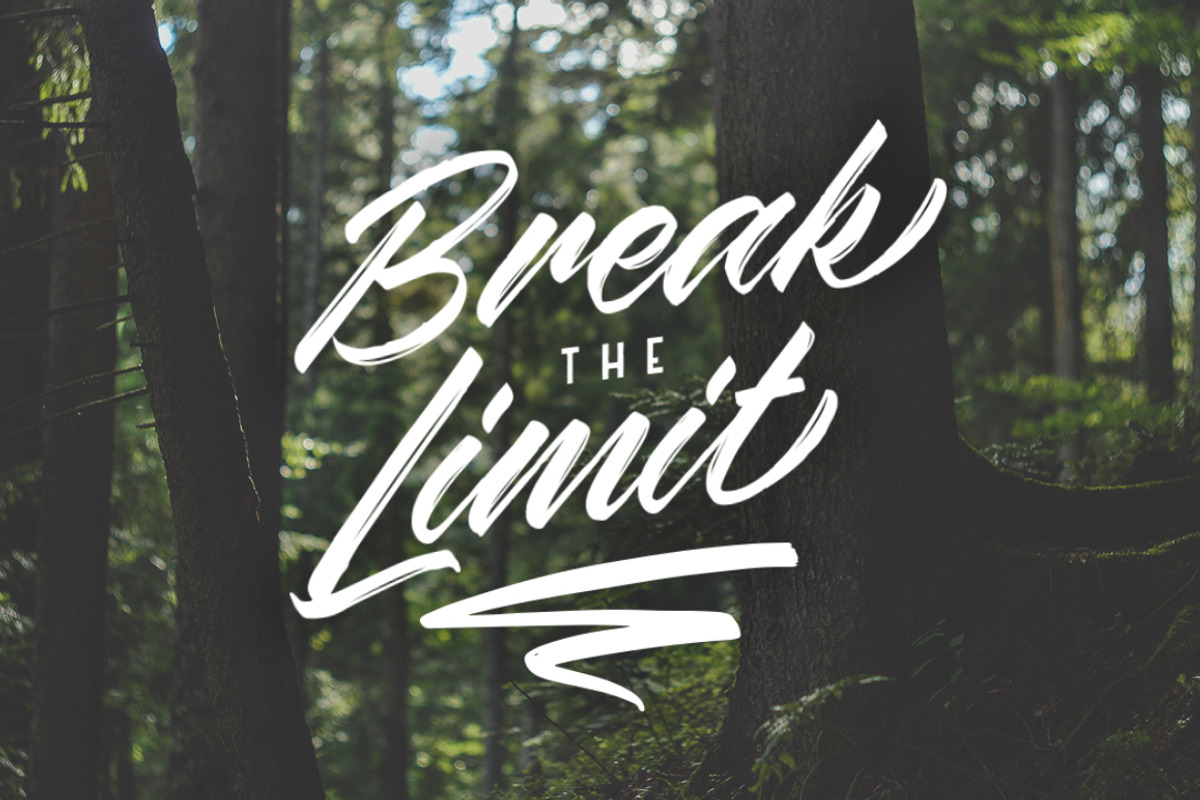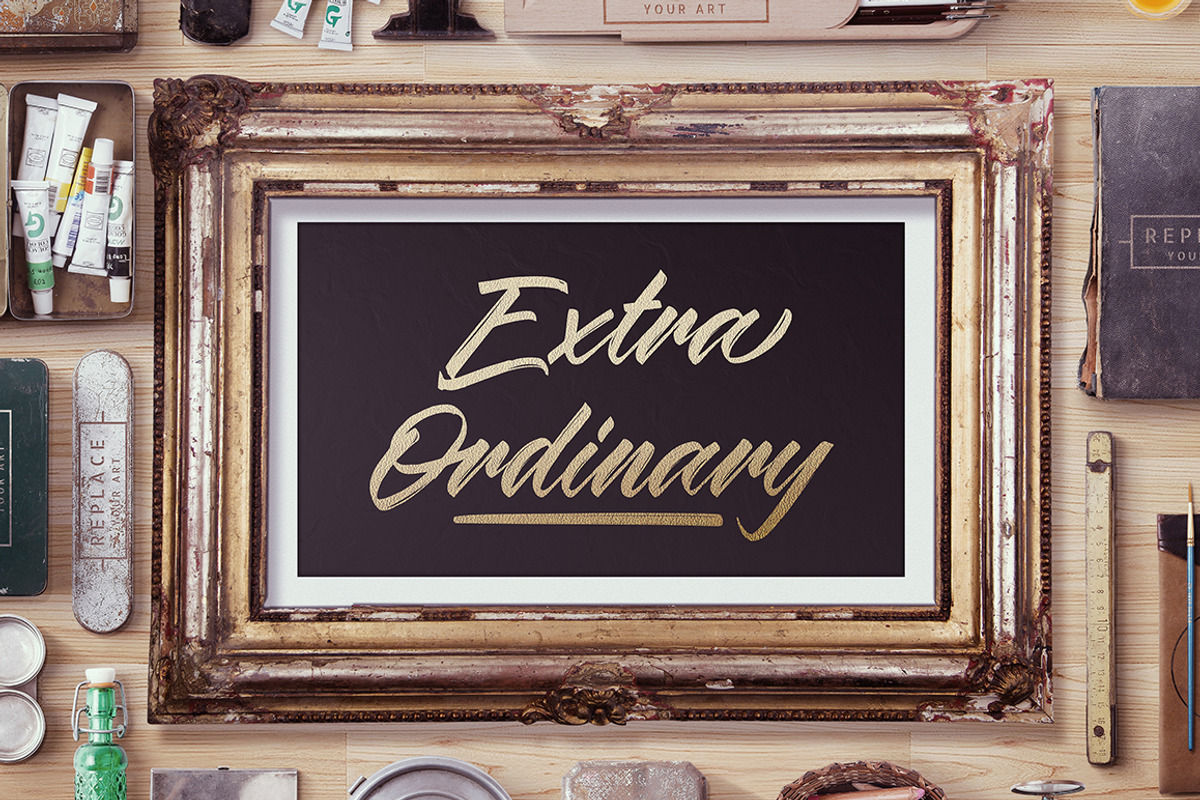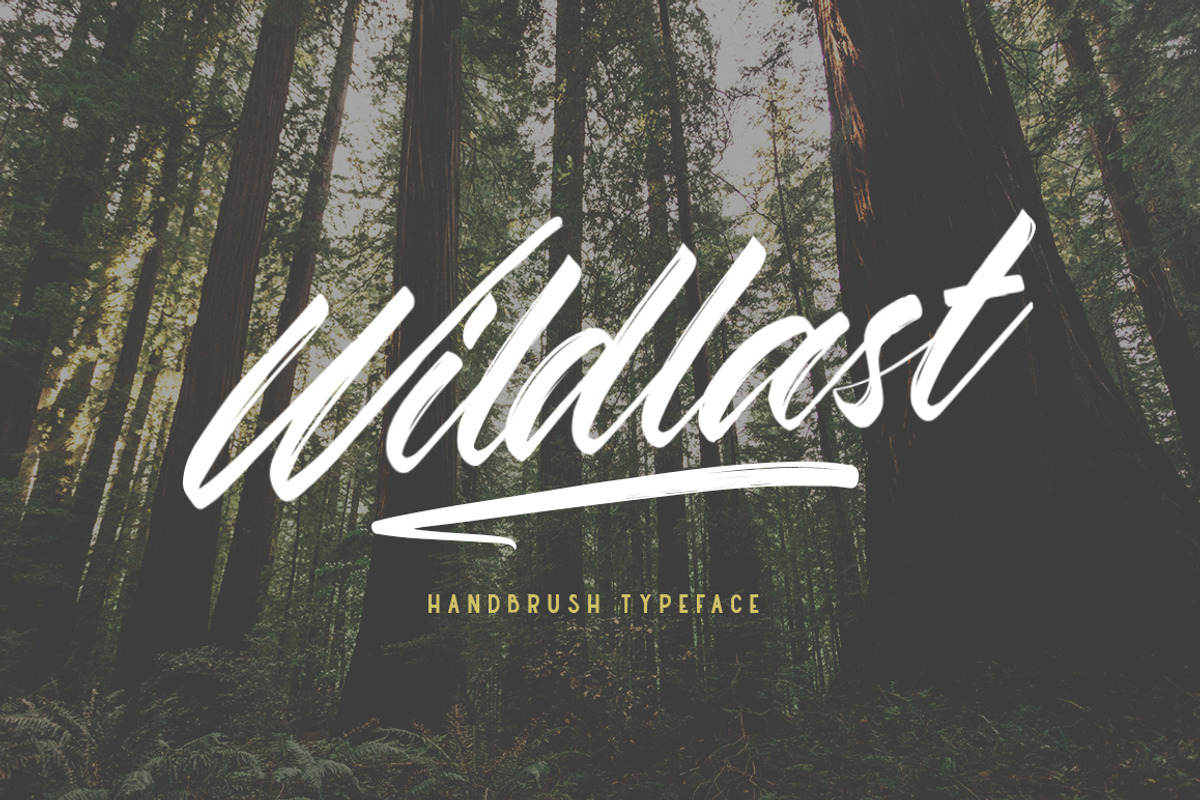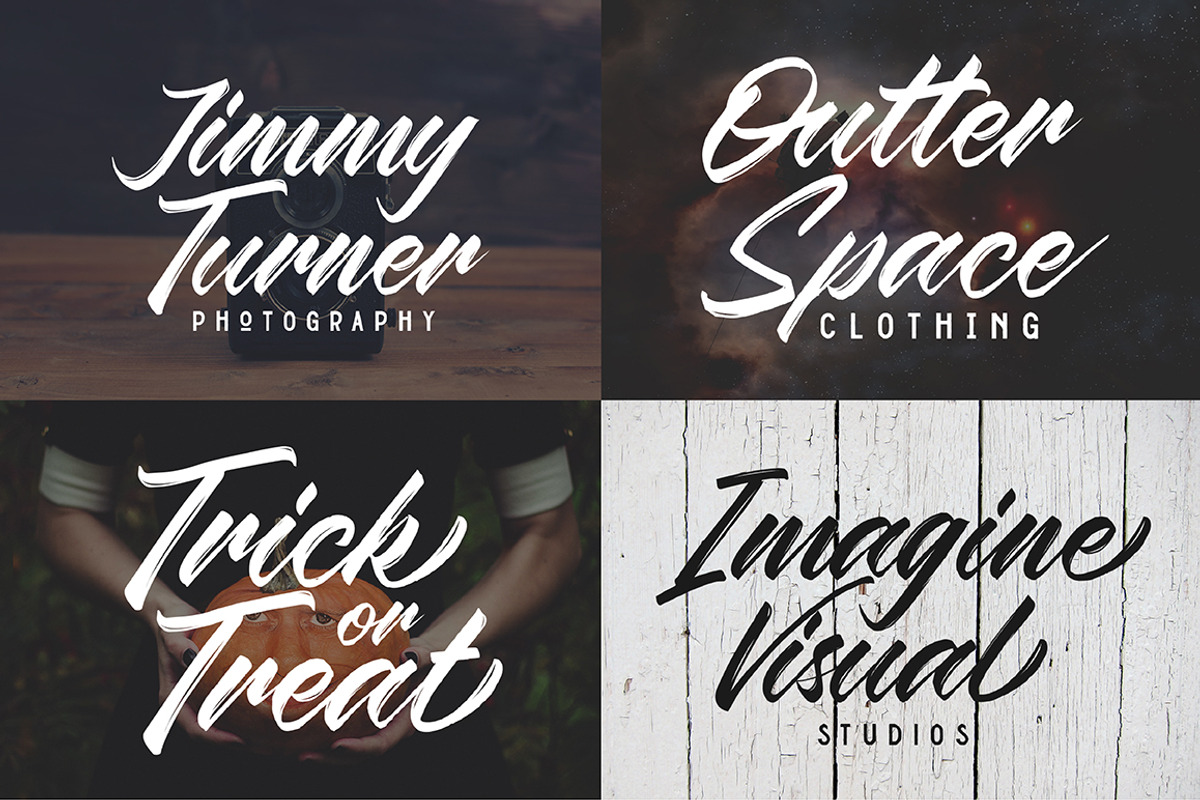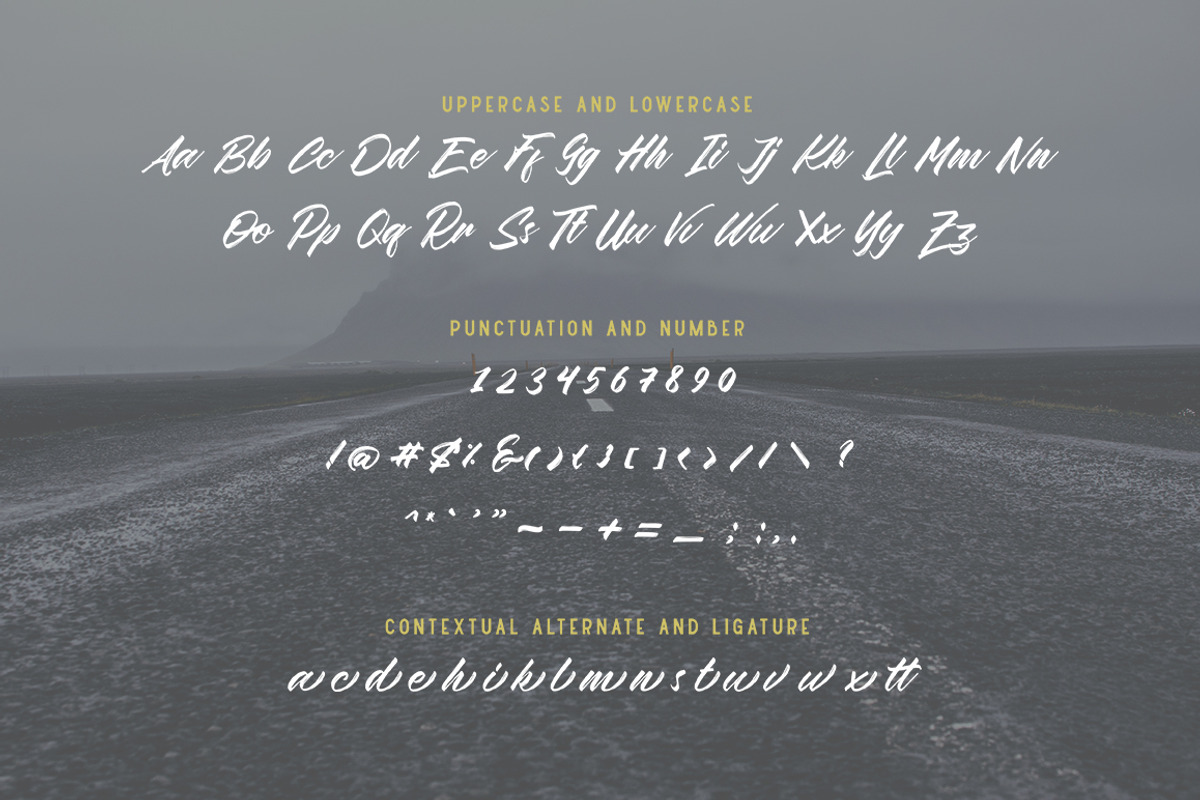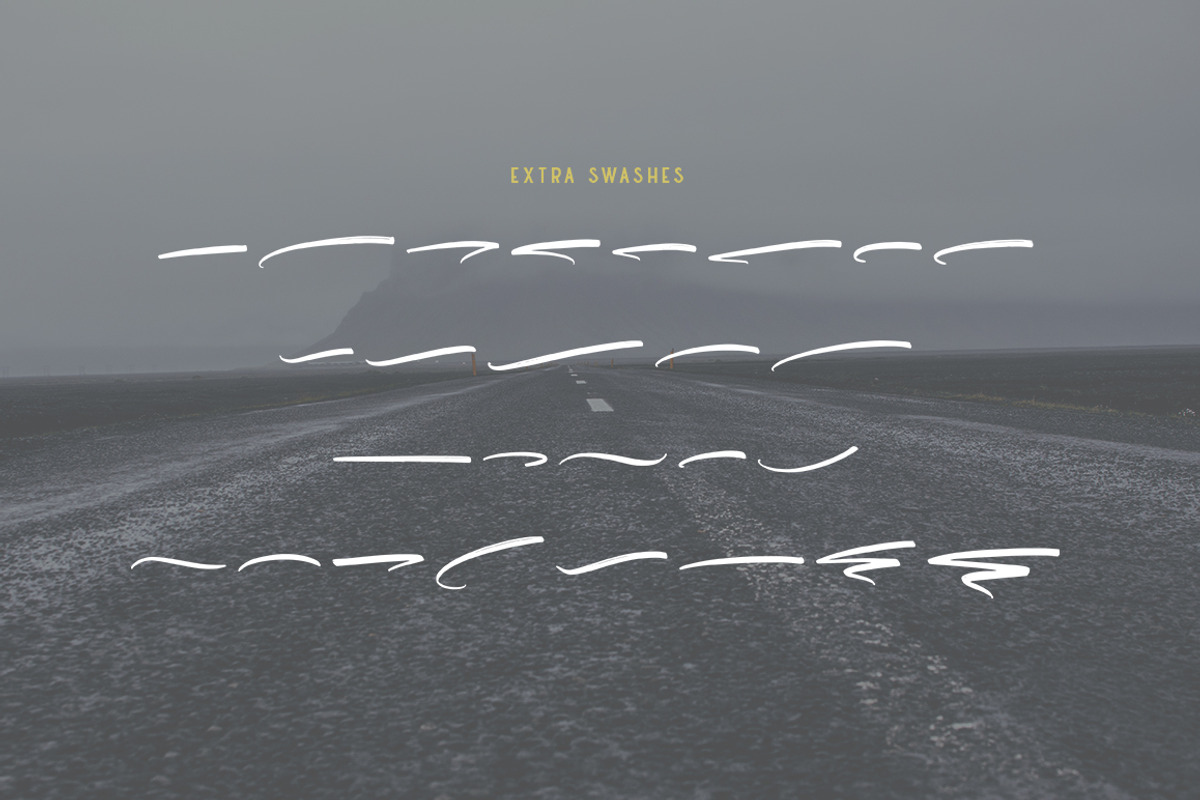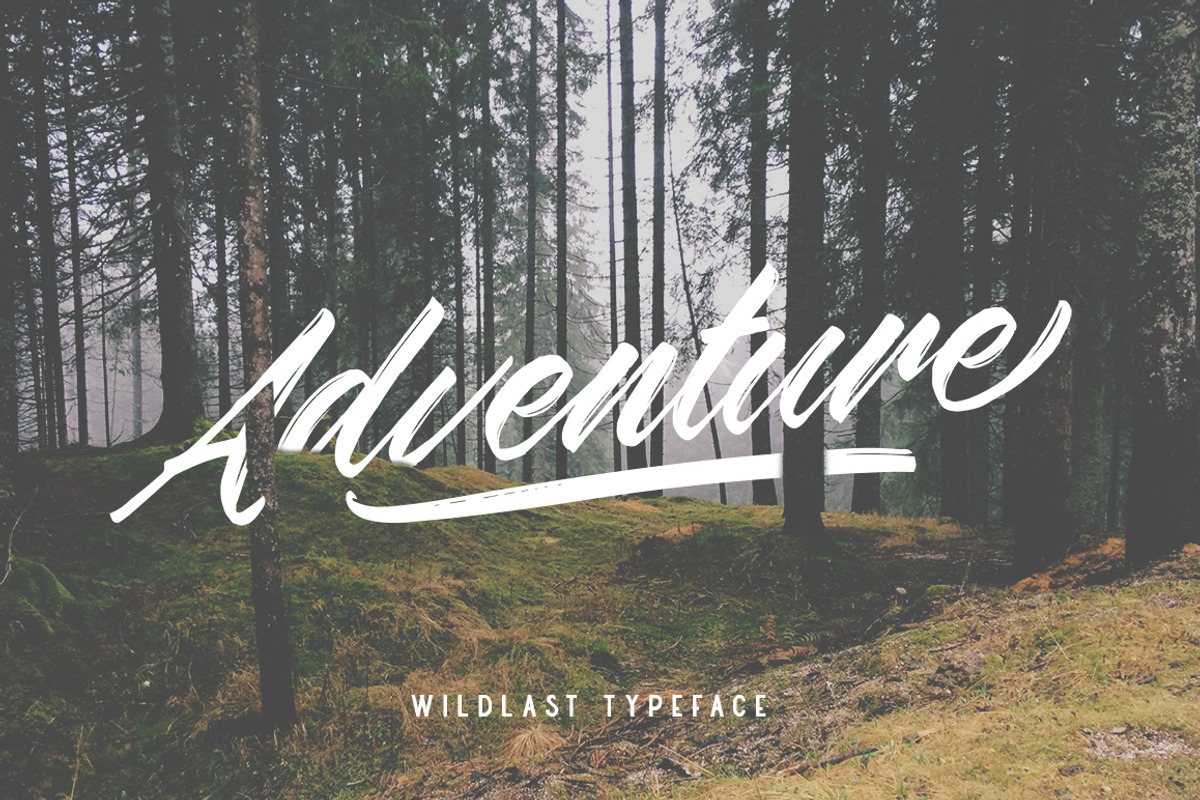
Wildlast Handbrush Typeface
WIldlast is a script font with a natural bruhpen touch and made by hand. They have a rough and brave character. Suitable and applicable to create typography design, christmas card, branding, logos, product packaging, invitation, qoutes, t-shirt, label poster etc.
Punctuation and Number
Multilingual Language
Contextual Alternate & Ligature
Why Wildlast Handbrush Typeface is worth a look
Wildlast Handbrush Typeface by Dikas Studio fits naturally into Branding, posters, packaging, typography.